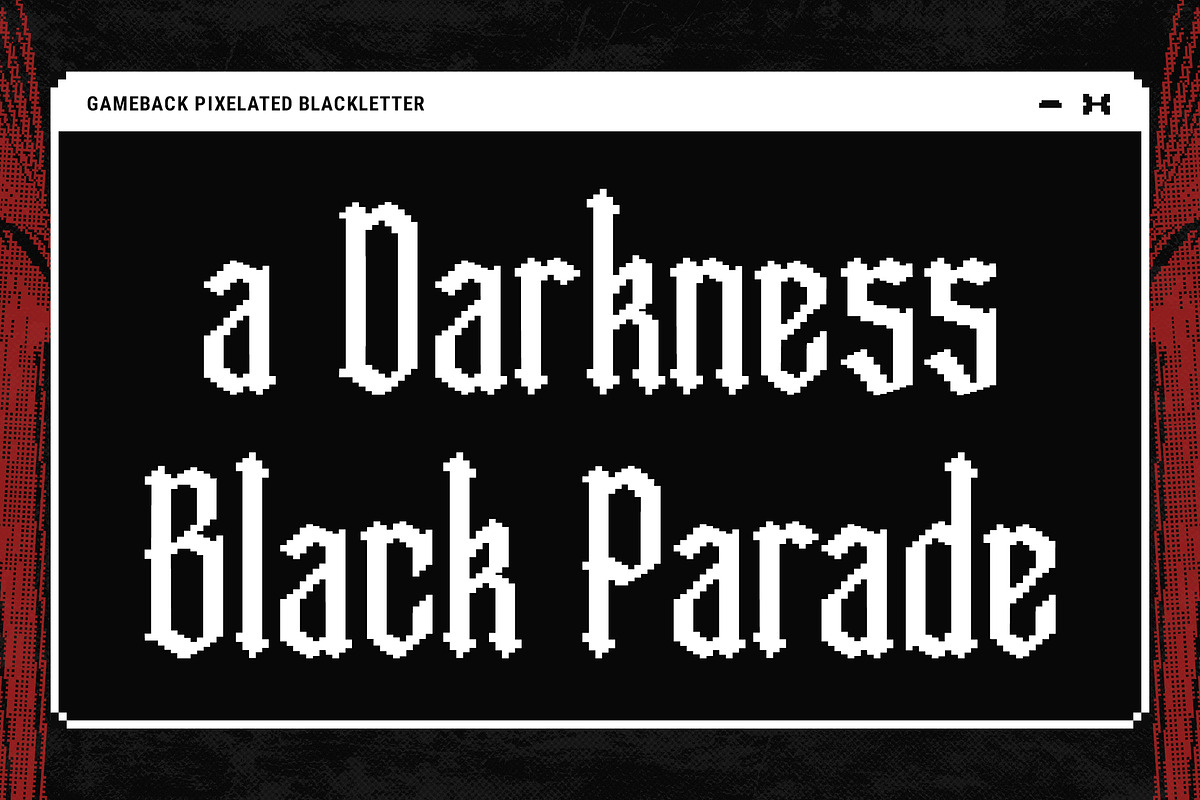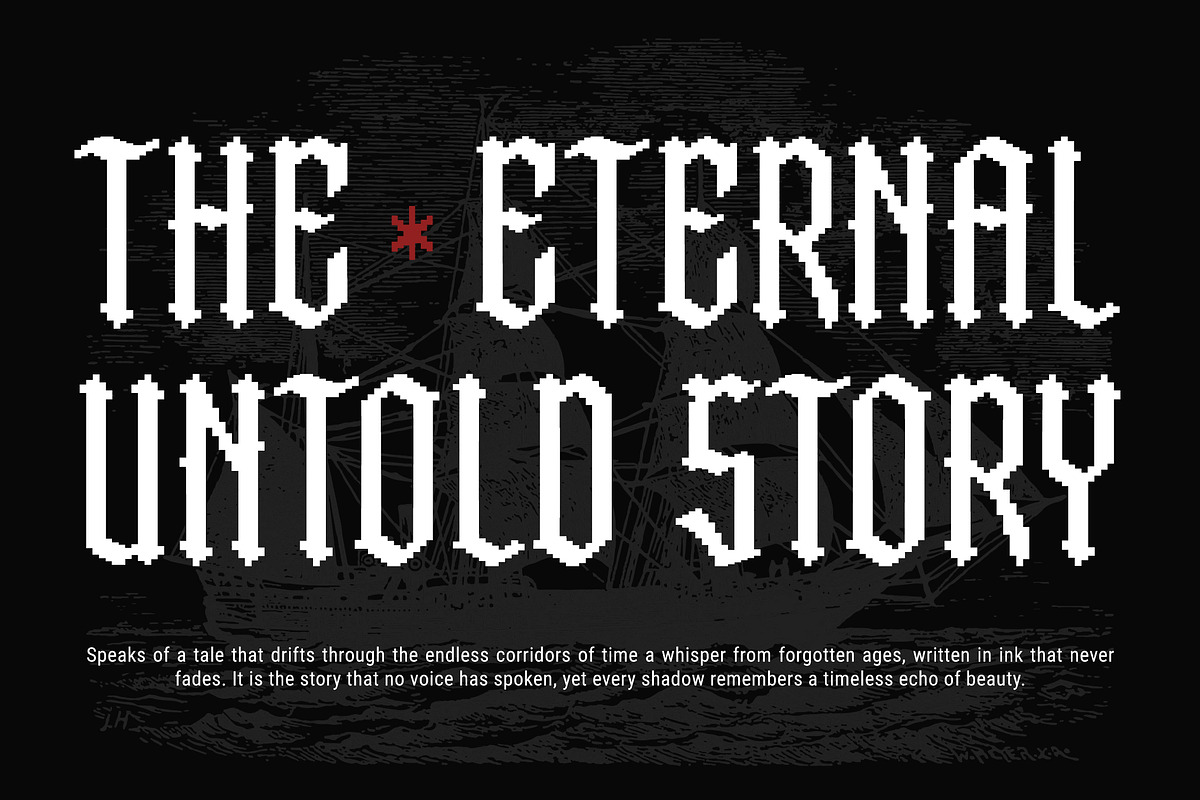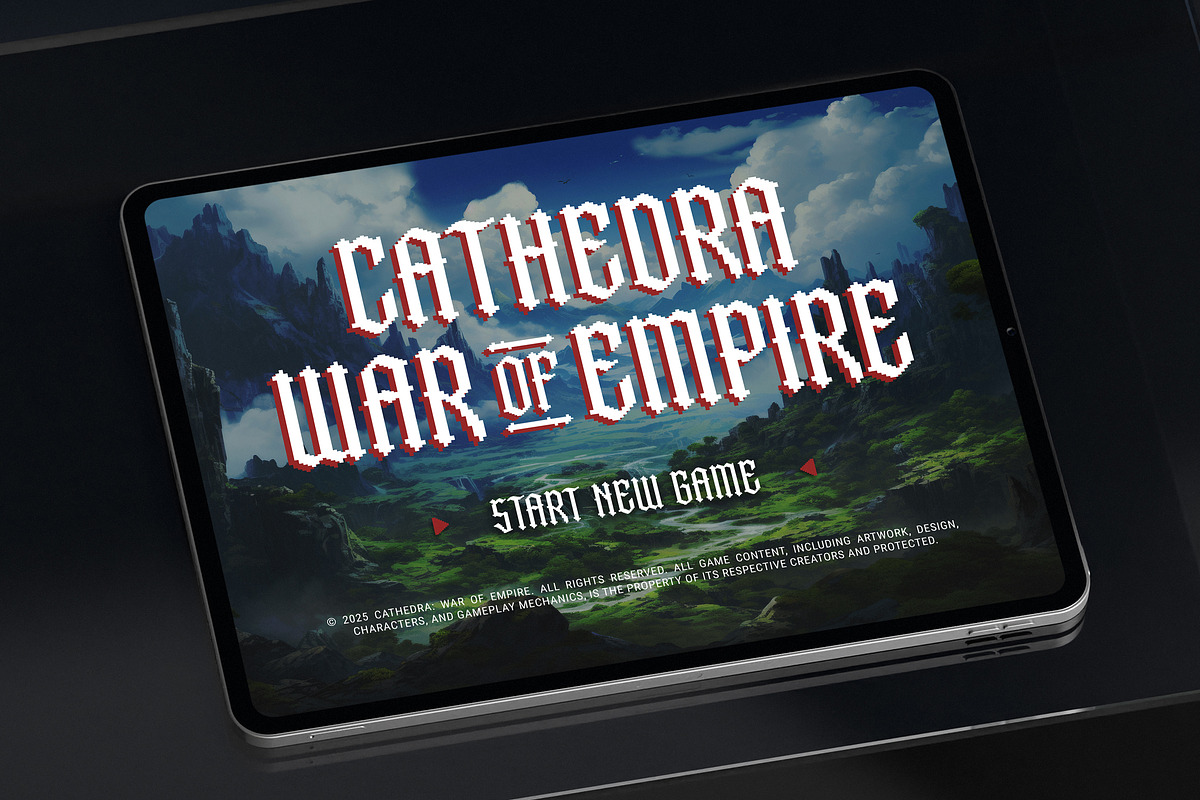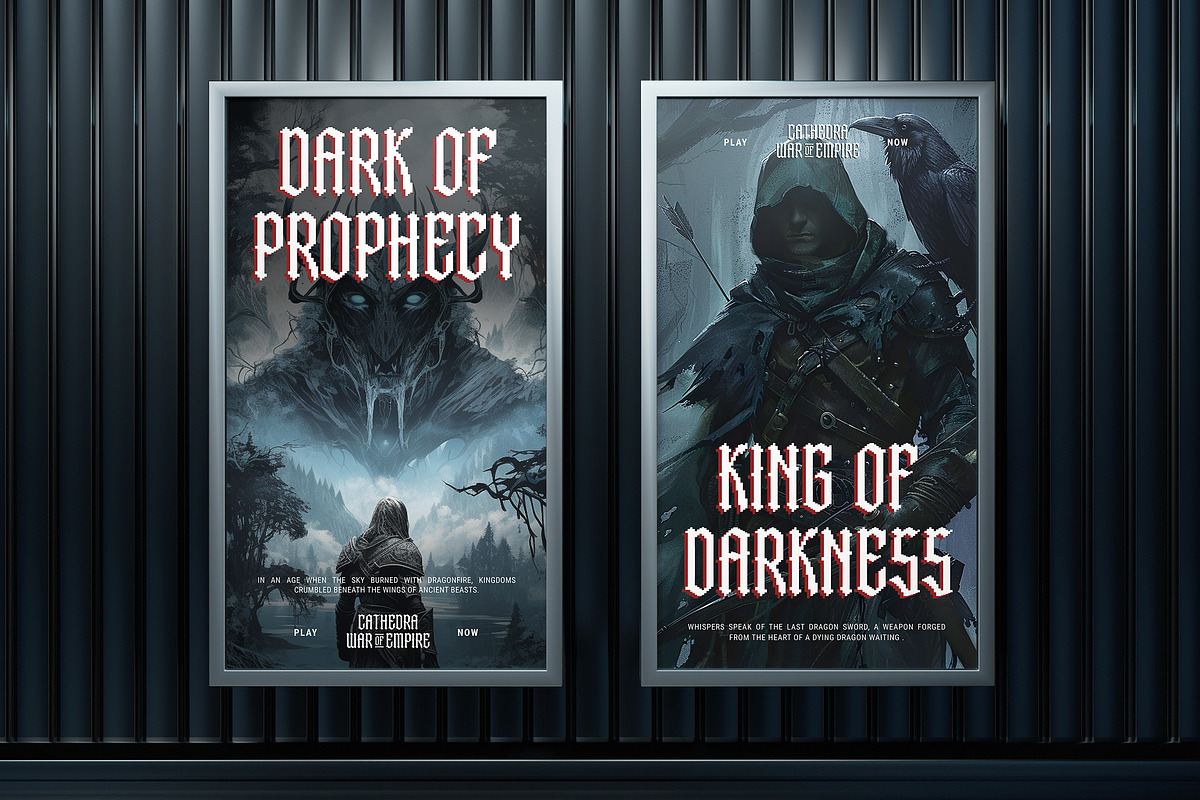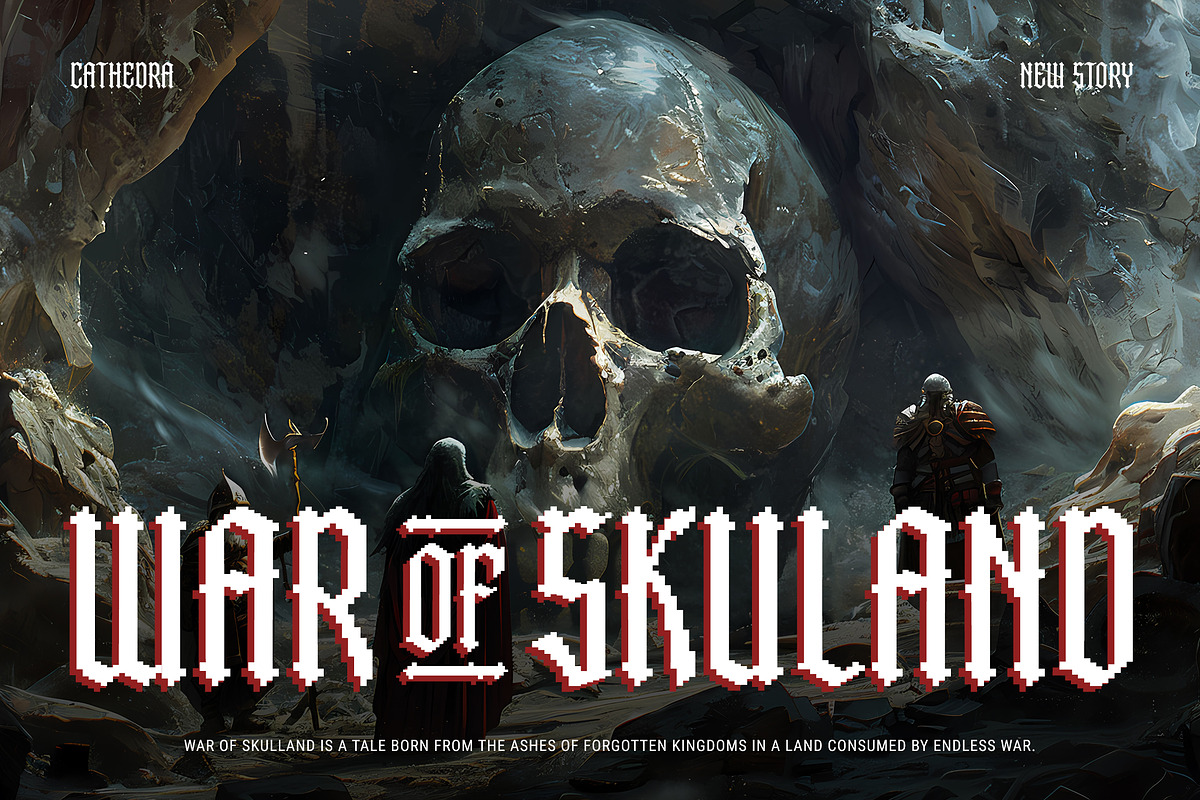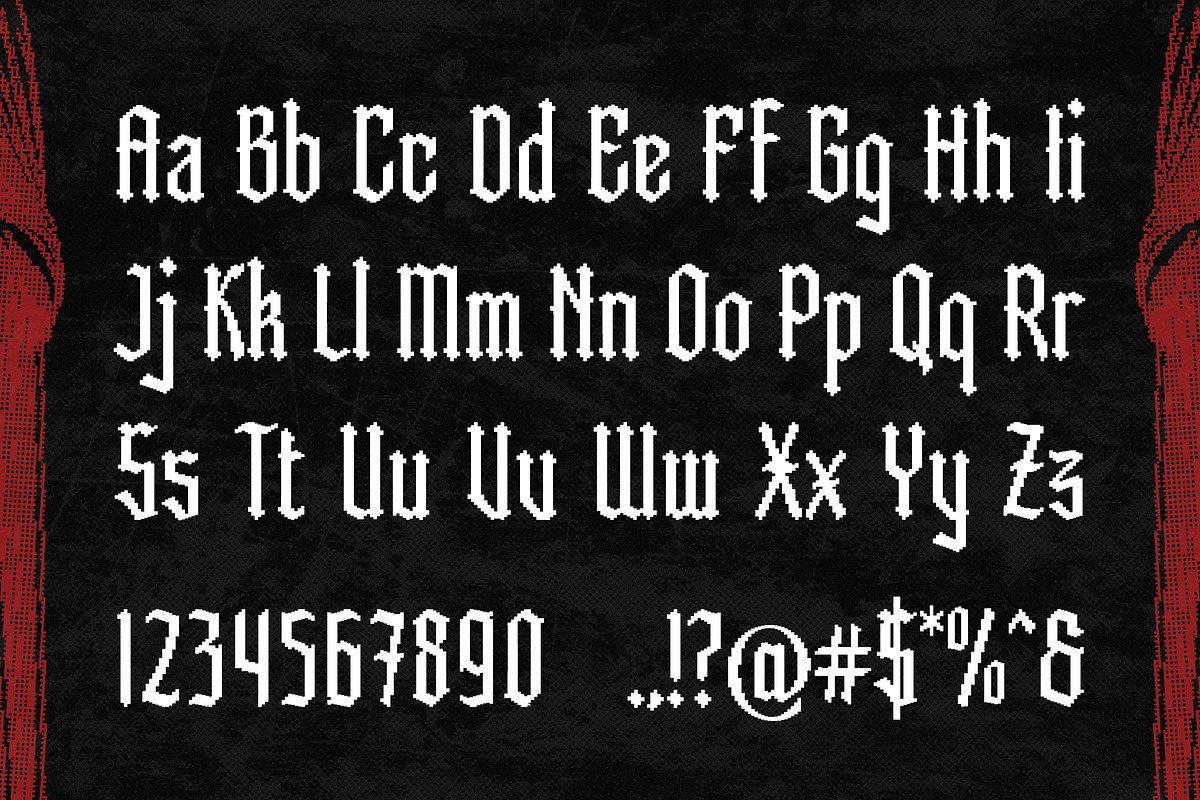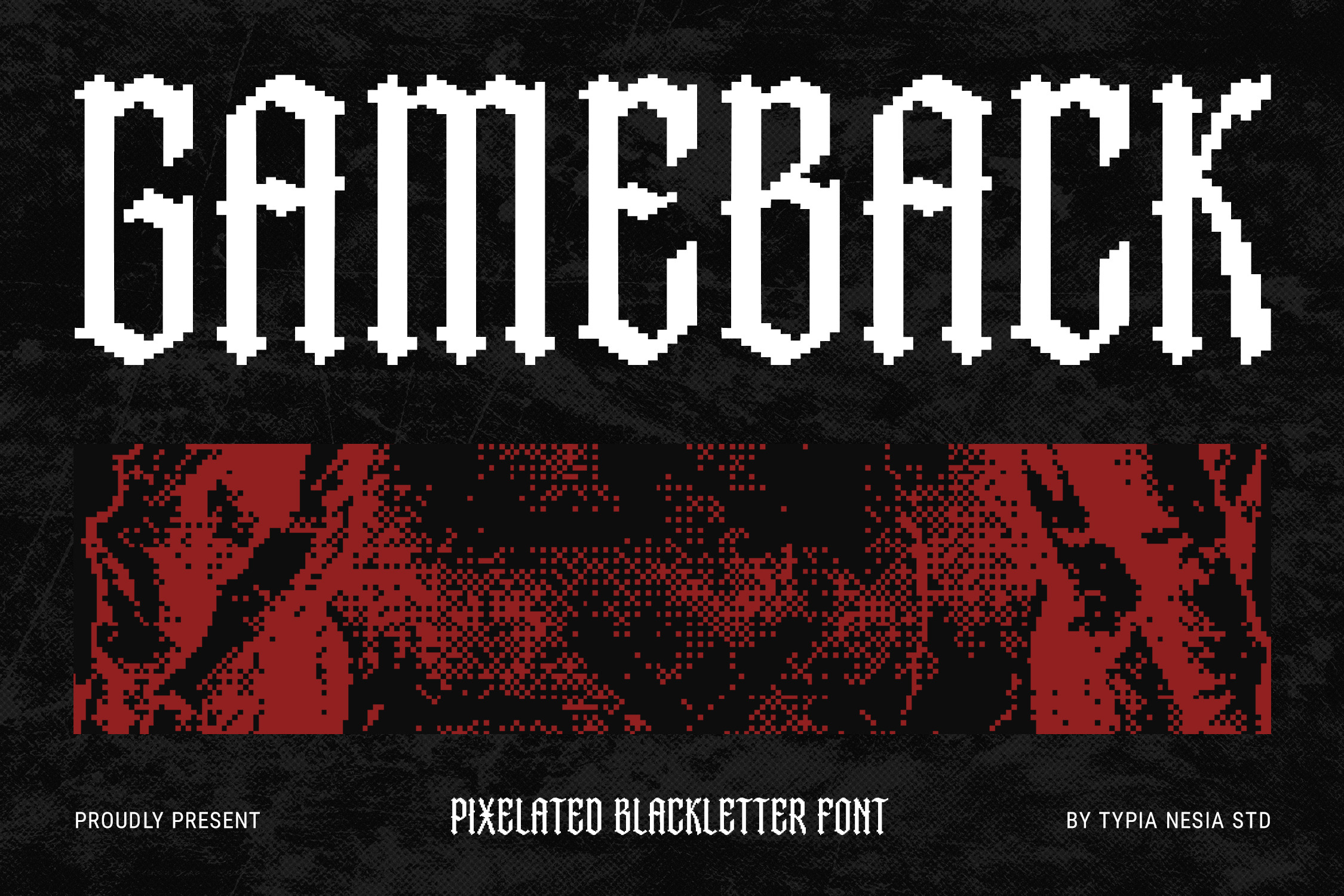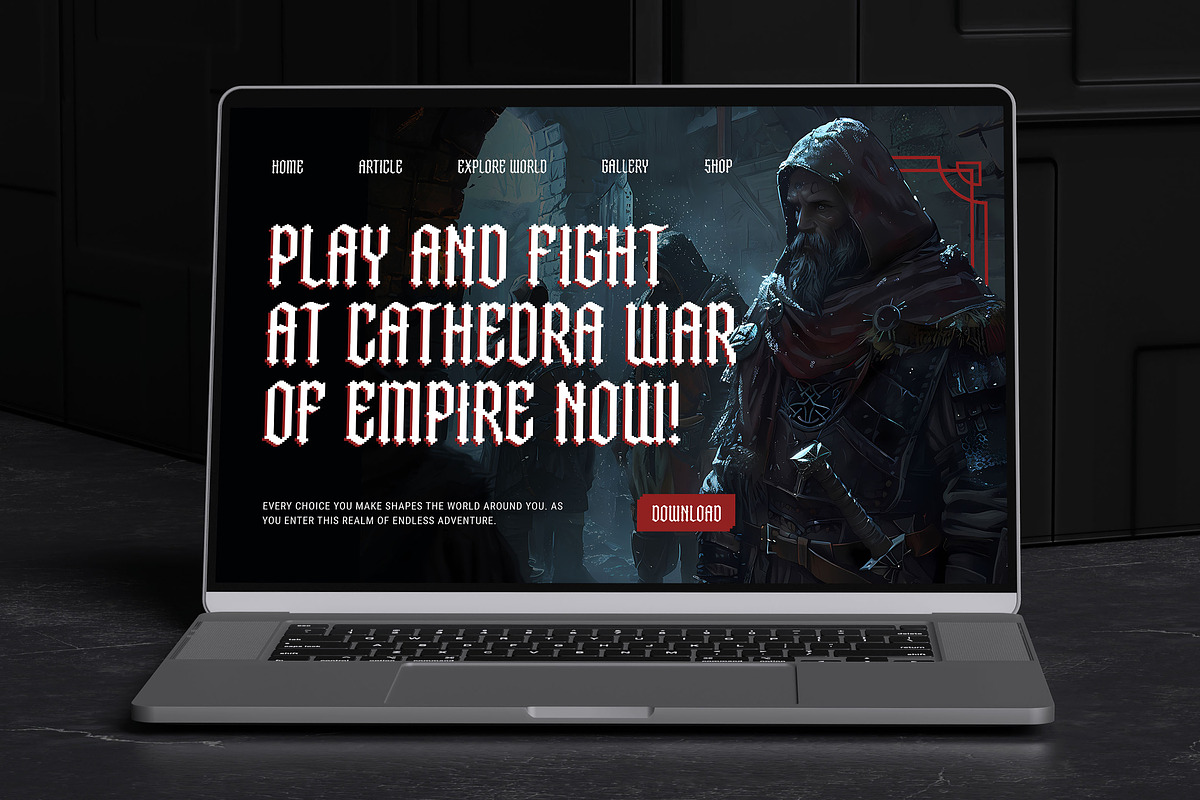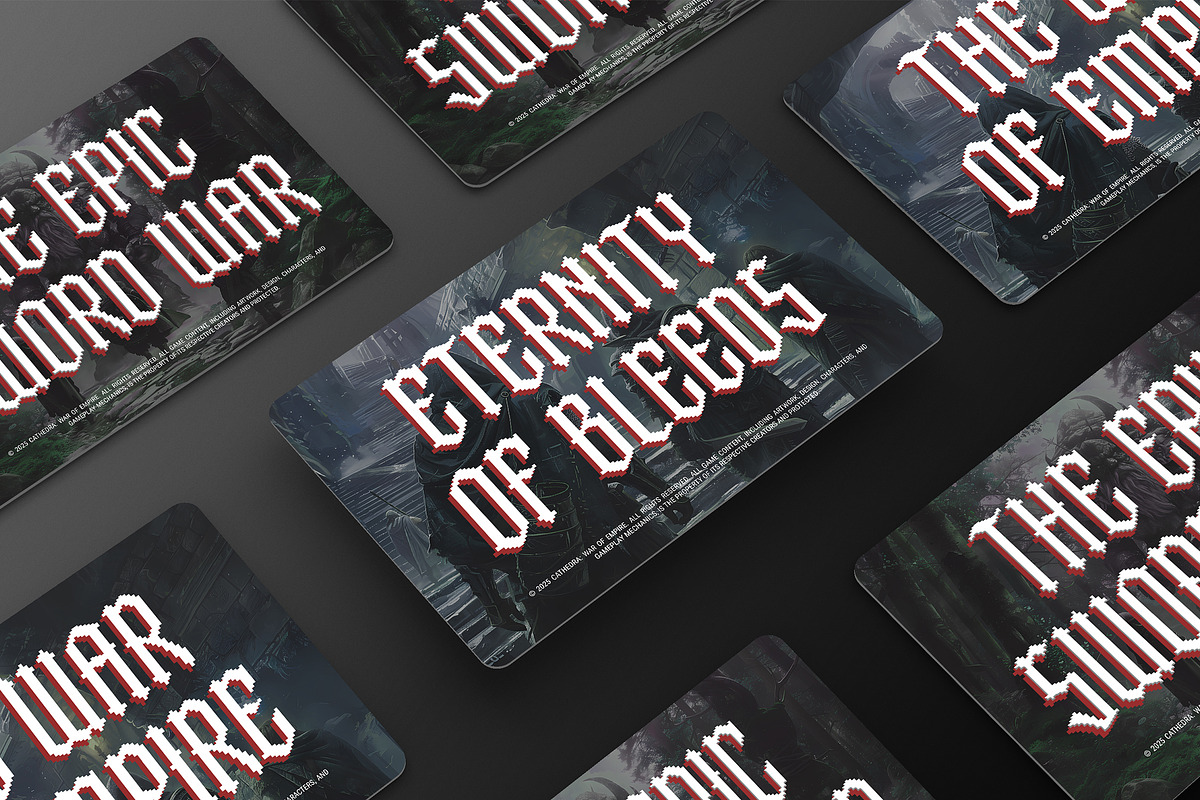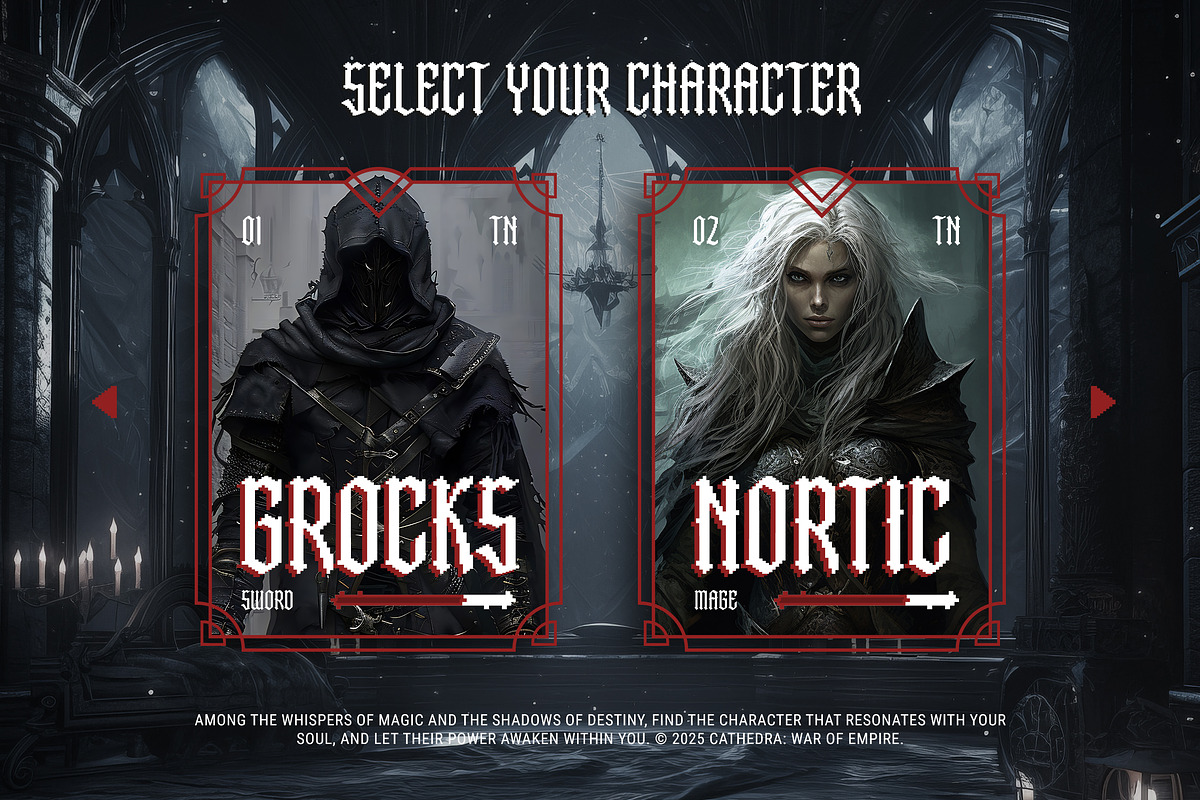
Gameback - Pixelate Blackletter Font
Gameback - Pixelate Blackletter Condensed / Tall Game Font - Retro Digital Logo Display Font
Gameback is a Modern Pixelate Blackletter Game Font that delivers the striking elegance of Gothic script combined with the gritty nostalgia of the 80s arcade era. This display font features a distinctive 8bit pixel texture and a tall, condensed structure, with retro-futuristic is perfect for crafting impactful Logo designs, intense game titles, dynamic music branding, digital media, eye-catching event posters, web interface or high-visibility print and any projects that require a touch of modern pixelate with blackletter font, Gameback's unique character ensures your design is both classically powerful and deeply nostalgic.